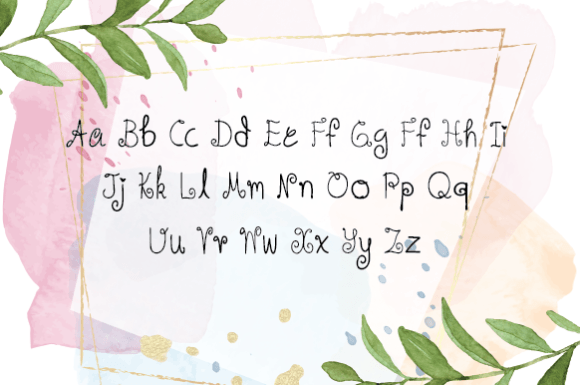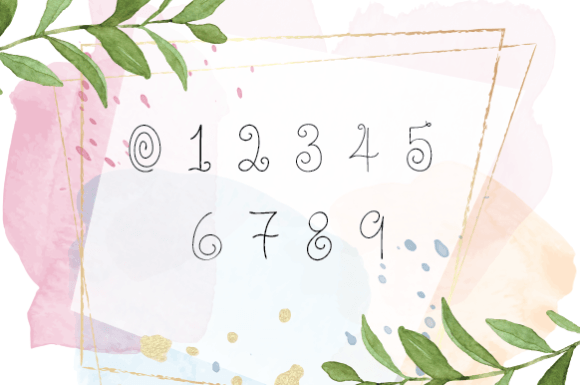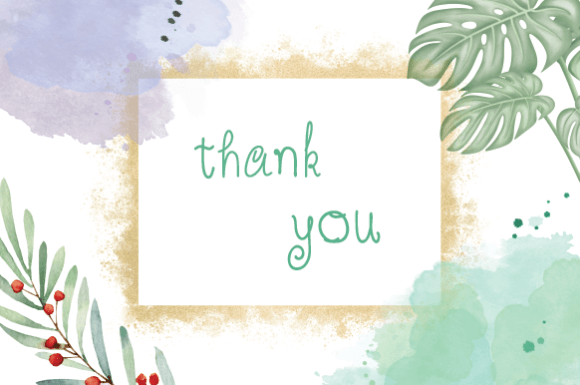
The Joyful World of Flora Font
Have you ever been in the middle of a design project, and suddenly, you’re stuck on finding the perfect font? I recall a recent experience where I was working on a children’s book layout, and my client requested a font that was not only playful but also conveyed a sense of joy and festivity. After scouring through numerous font libraries, I stumbled upon Flora Font, and it instantly became the perfect fit. In this article, I’ll share my experience with Flora Font, its features, and how to make the most of it in your designs.
A Personal Review of Flora Font
Flora Font is a vibrant display font designed specifically for joyful subjects, making it an excellent choice for children’s-themed creations and festive projects. Here’s what I love about it:
- ✨ Vibrant and Playful: Flora Font exudes a lively and cheerful vibe, perfect for adding a touch of fun to your designs.
- ✅ Highly Versatile: This font is suitable for a wide range of projects, from children’s books to holiday-themed designs.
- 🎉 Excellent for Display Text: Flora Font is optimized for display text, making it perfect for headings, titles, and other prominent text elements.
While Flora Font is an excellent choice for many projects, it’s essential to note a few minor quirks:
- ⚠️ Limited Use for Body Text: Due to its playful and decorative nature, Flora Font might not be the best choice for body text or lengthy paragraphs.
- 🤔 Glyph Limitations: While Flora Font has an impressive range of glyphs, it might not have every special character or symbol you need.
The Backstory of Flora Font
Flora Font was designed with the intention of creating a playful and joyful font that captures the spirit of festivity and celebration. The designer aimed to create a font that would bring a smile to people’s faces and add a touch of whimsy to their designs. With its vibrant and lively personality, Flora Font has become a popular choice among designers and crafters.
| Font Name | Flora Font |
| Author | Oatmeal |
| What type of projects is Flora Font best suited for? | Flora Font is perfect for children’s-themed creations, festive projects, and any design that requires a playful and joyful touch. |
| Is Flora Font suitable for body text? | While Flora Font can be used for body text, it’s primarily designed for display text and headings. |